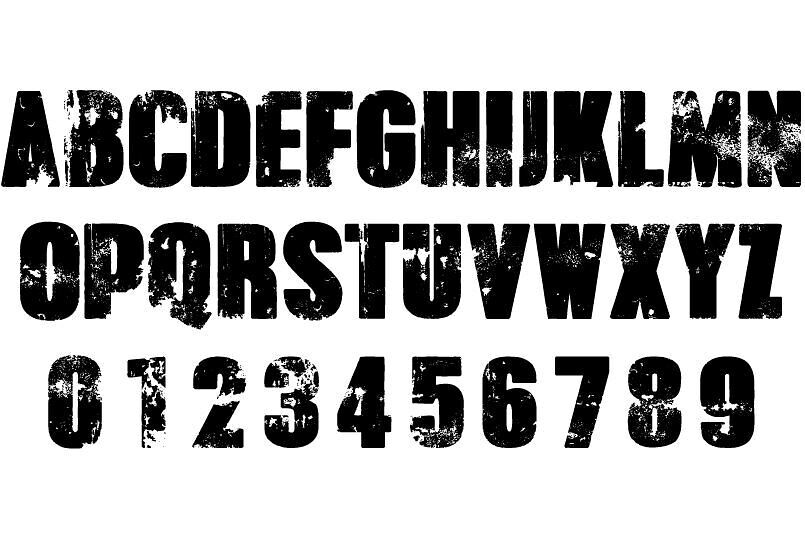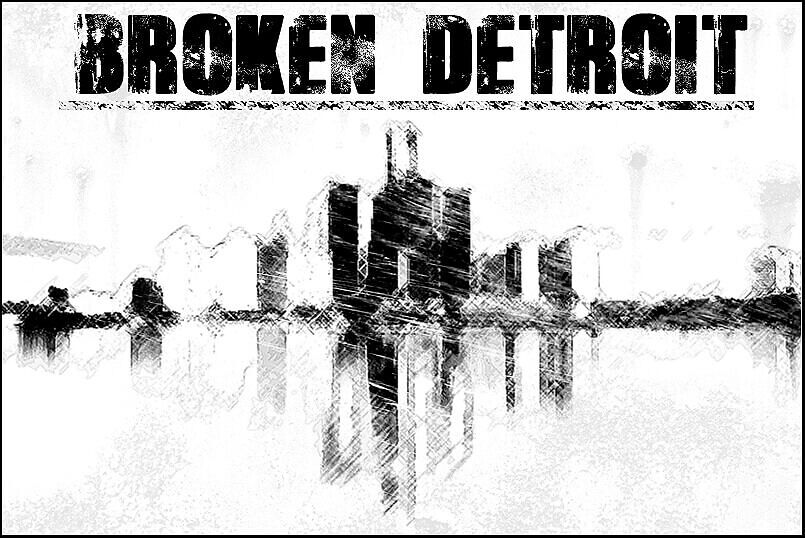
Broken Detroit Font
Detroit is a really beautiful city and became an artistic playground for graphic designers and photographers. It really inspired us to make a font that looks as Detroit: Grunge and beautiful.
“Broken Detroit” has been specially made for headlines and display. It’s a strong font with wall-effects which give it a destroyed look. It will really help you to give some characters to your design.
Designed by: Herofonts